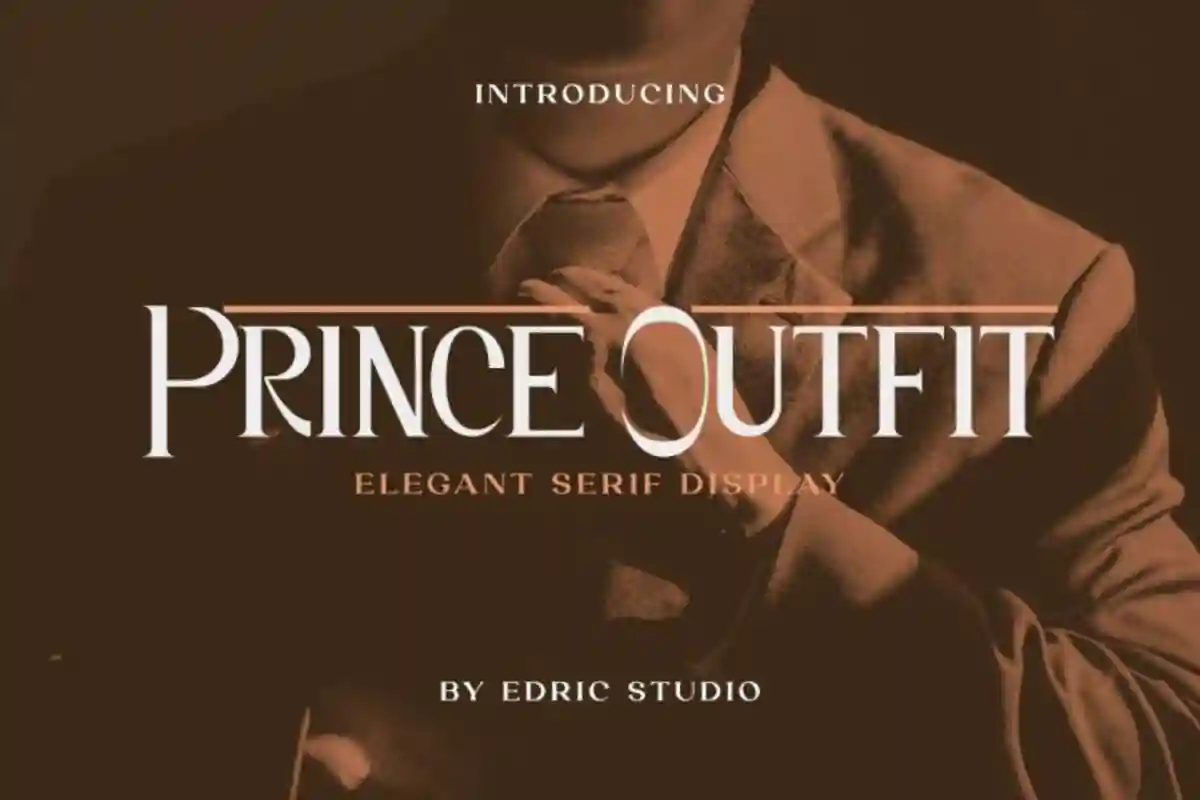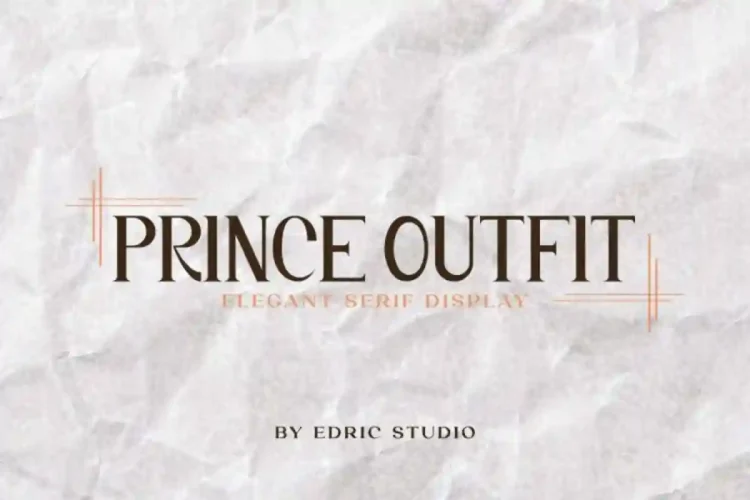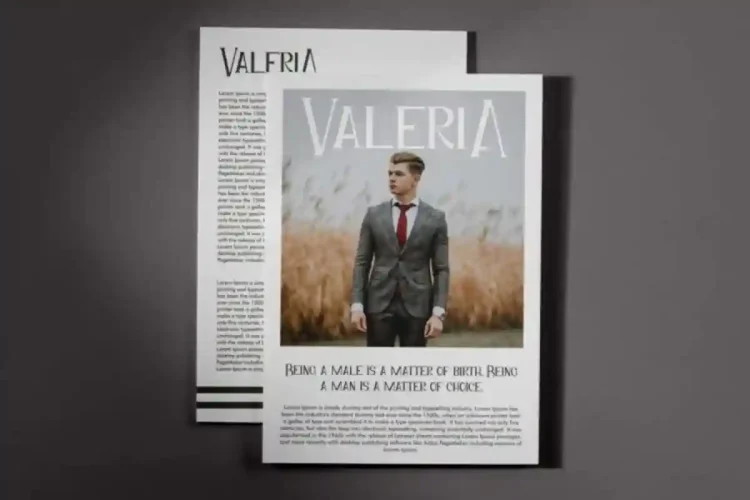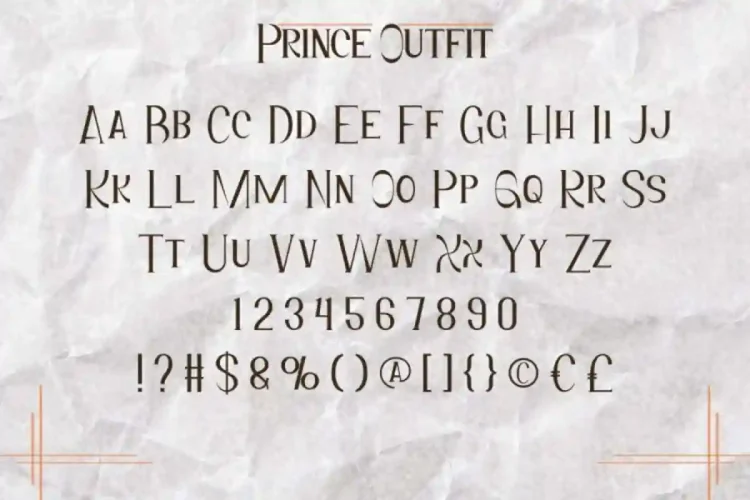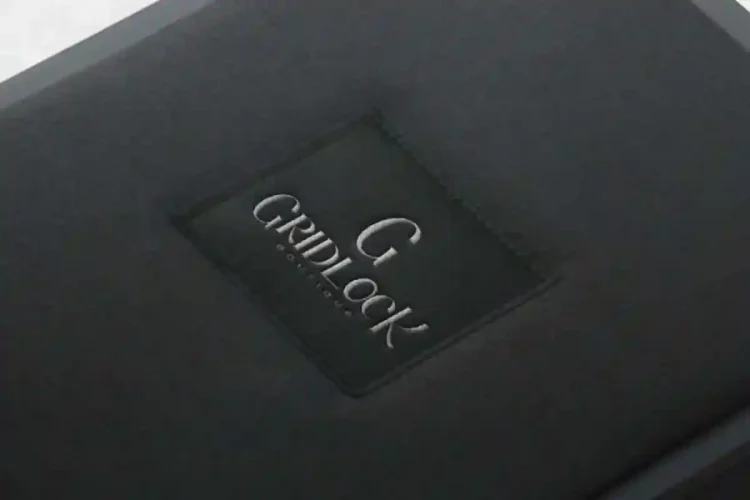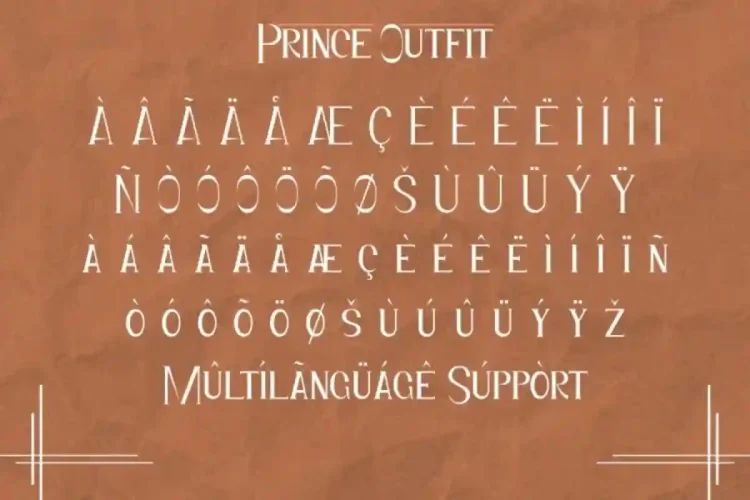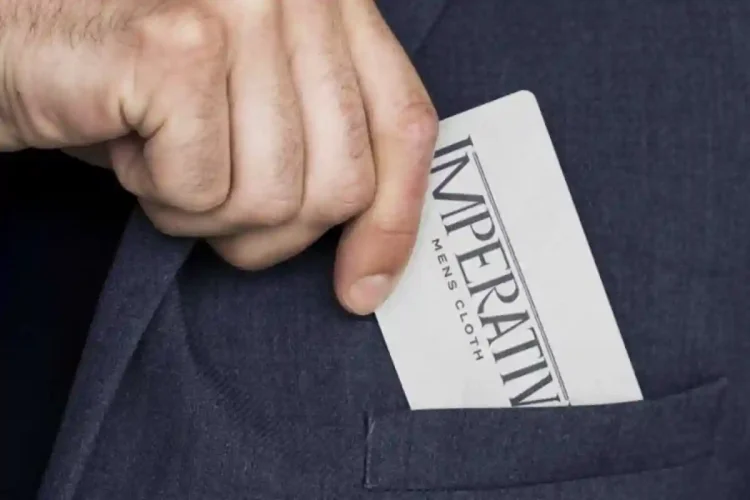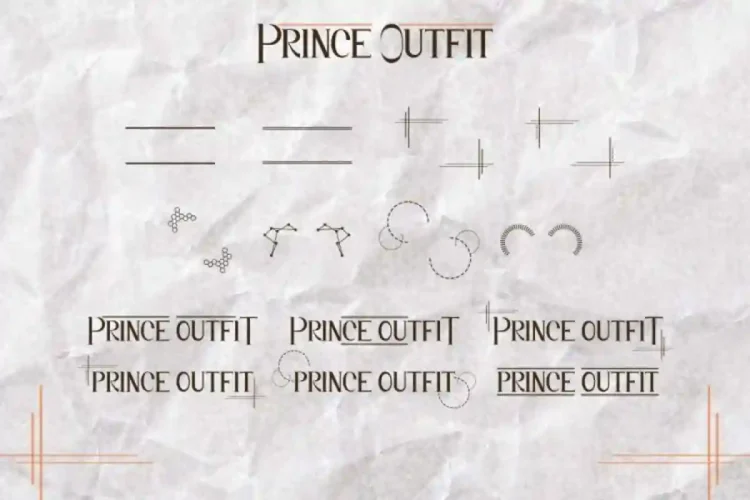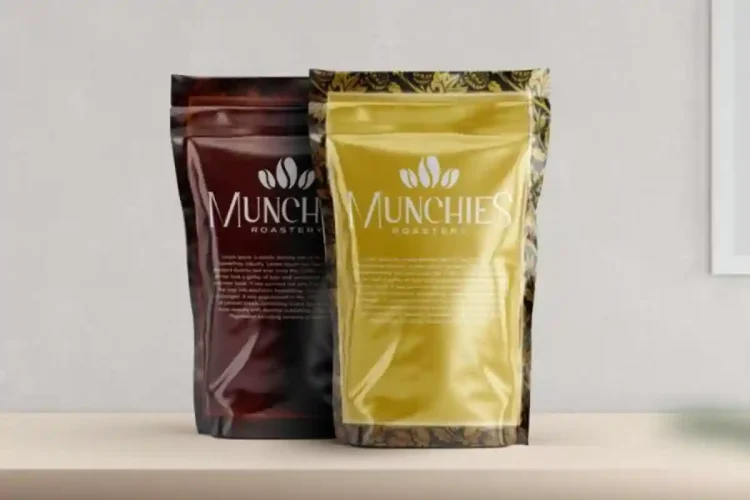
Prince Outfit Modern Display Font
Prince Outfit Font a casual serif display font exclusively crafted by EdricStudio. This font has a casual and cool look that will suit any industry, including: accessories, barbershop, boutique, café, furniture, men’s fashion brand, photography, restaurant, and anything that requires a stylish and vintage serif look.
Prince Outfit Font comes with ALL CAPS with different size between Uppercase and Lowercase Characters, Number, large range of Punctuation and Symbol. It has a stunning characters set, perfectly managed with well spaced and kerning. Prince Outfit Modern Display Font will be able to complement for any project (with extended license) including: article, brand logo, business card, label, magazine catalog, product packaging, signage, etc.